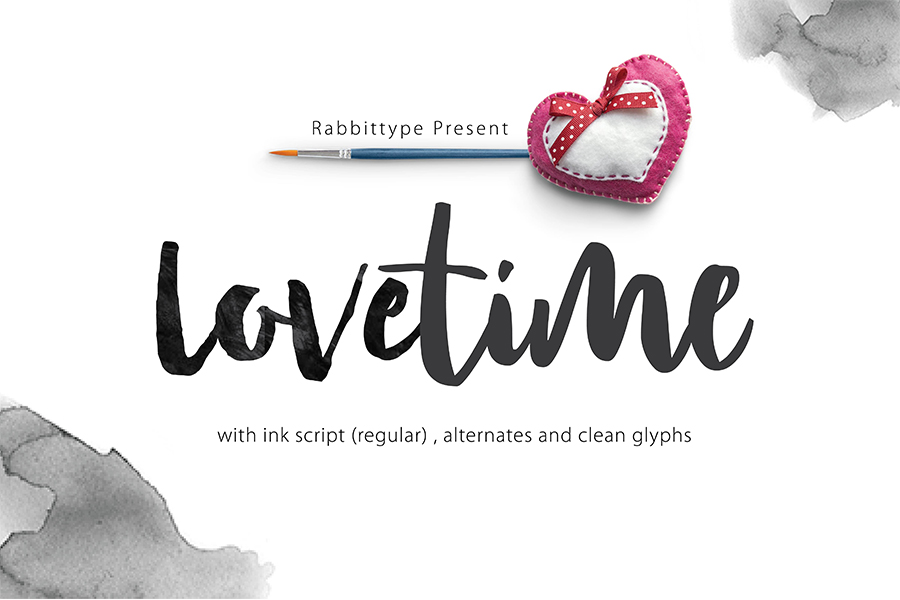
Lovetime Script
Lovetime Script is a beautiful Script, It suitable for wedding invitation, greeting cards, T-Shirt, Logo or any design that you create.